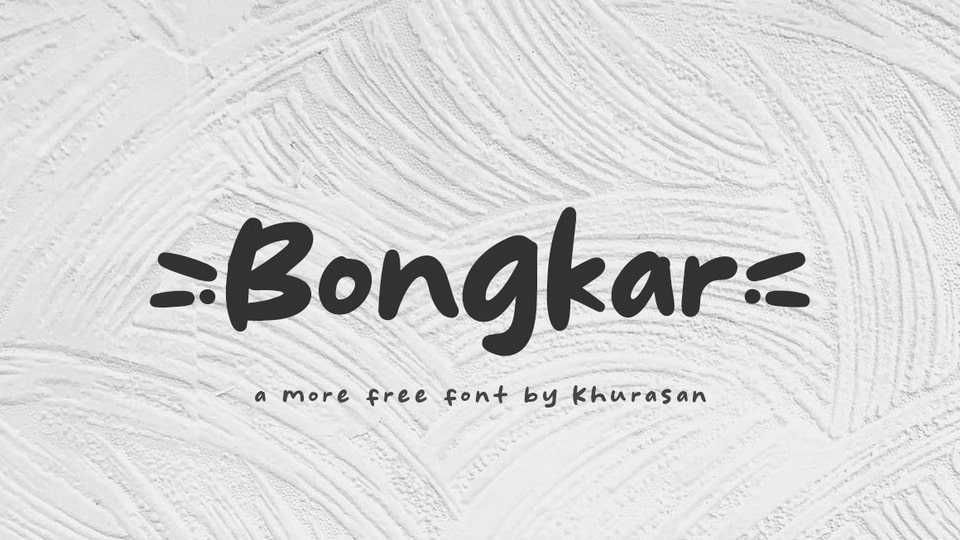
Download Bongkar font, a bold and funny hand drawn marker typeface. Bongkar is perfect for writing out quotes for Instagram posts, wall art or greeting cards, crafts, packaging or branding.